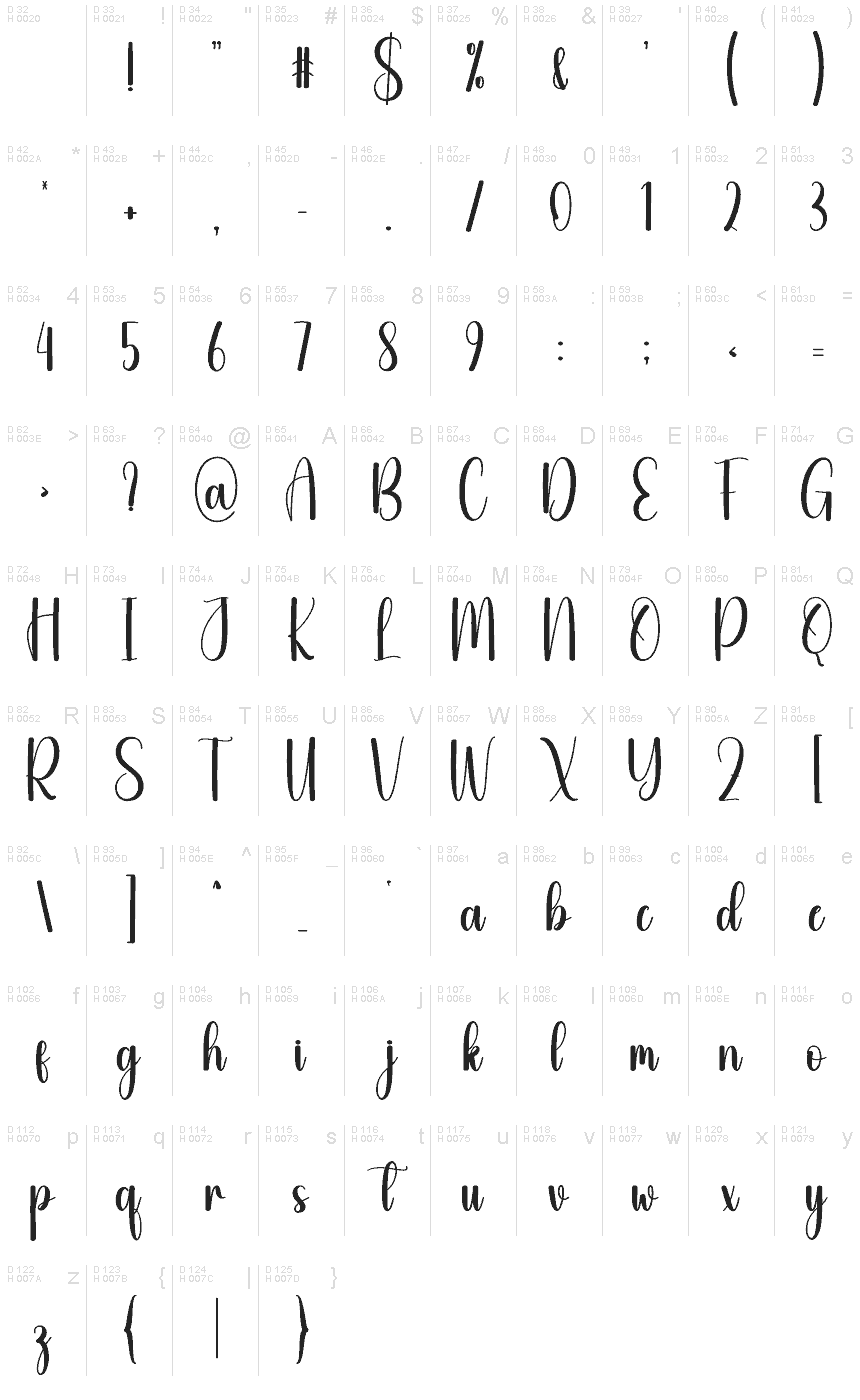
Snow Beautiful
Snow Beautiful font is a free handwritten font from Scratchones with an instantly remarkable look. It has unique shapes for letters consisting of decorative elements that give its viewers the powerful flow of elegant vibes and graceful curves. This condensed font can help you achieve extraordinary results for your design given its fresh yet professional appearance.
When working on wedding planners, Snow Beautiful will upgrade the ROI of every piece; guest books, table numbers, invitation cards, thank you notes, name tags and more. Alongside this typeface can be used in crafts such as posters, signs. labels and various other digital or printed works and products.